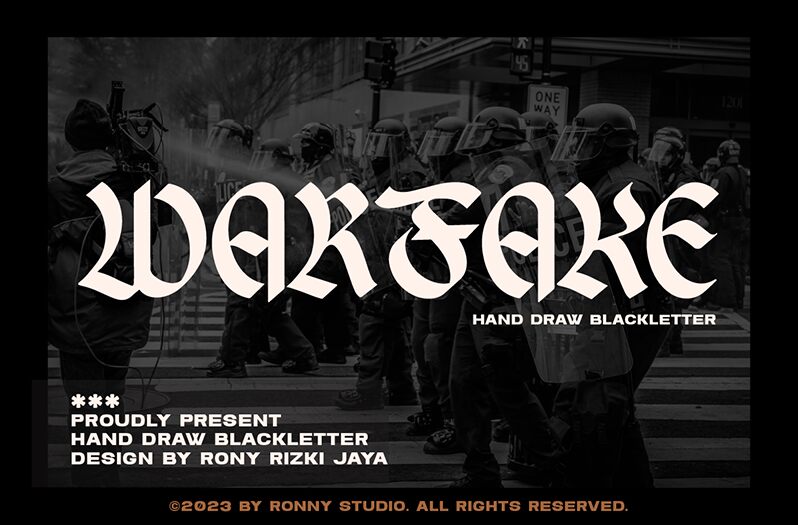
Warfake font, designed by Ronny Studio, stands out as a striking modern gothic typeface. Its bold presence combines intricate curves with sharp edges, creating a mesmerizing interplay of lightness and strength. The exaggerated forms command attention, making it ideal for projects that require a dramatic flair without sacrificing readability.
The aesthetic appeal lies in its unique character shapes that evoke both tradition and contemporary design sensibilities. Warfake's bold characters are perfect for headlines, branding, or promotional materials that aim to leave a lasting impression. Whether used in digital applications or print design, this font effortlessly elevates visual storytelling while adding an air of sophistication to any project.